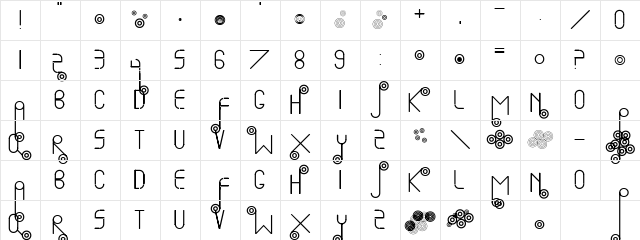
Complete Bullet Train Regular glyph index. Displaying only characters natively supported by Bullet Train Regular font.
Bullet Train is a composed and adaptable typeface that performs quietly and consistently across a wide range of design contexts.